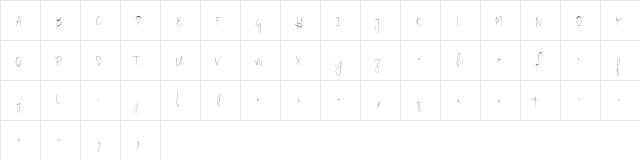
Youthness Regular
| Foundry | Jamaludin |
| Designer | Jamaludin |
Design Context for Youthness Typeface
Youthness is a composed and adaptable typeface that performs quietly and consistently across a wide range of design contexts.